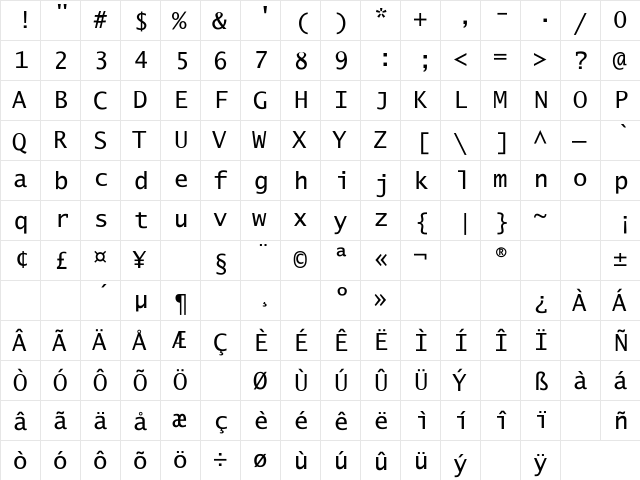
Lucerne Square Regular Font Preview
Lucerne Square Regular
Lucerne Square Regular Font Details
Design Context for Lucerne Square Typeface
Lucerne Square takes a measured approach to typography — its balanced proportions and neutral character make it a reliable workhorse for both digital and print work.